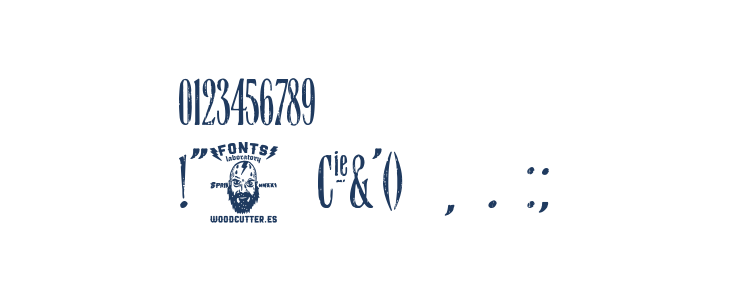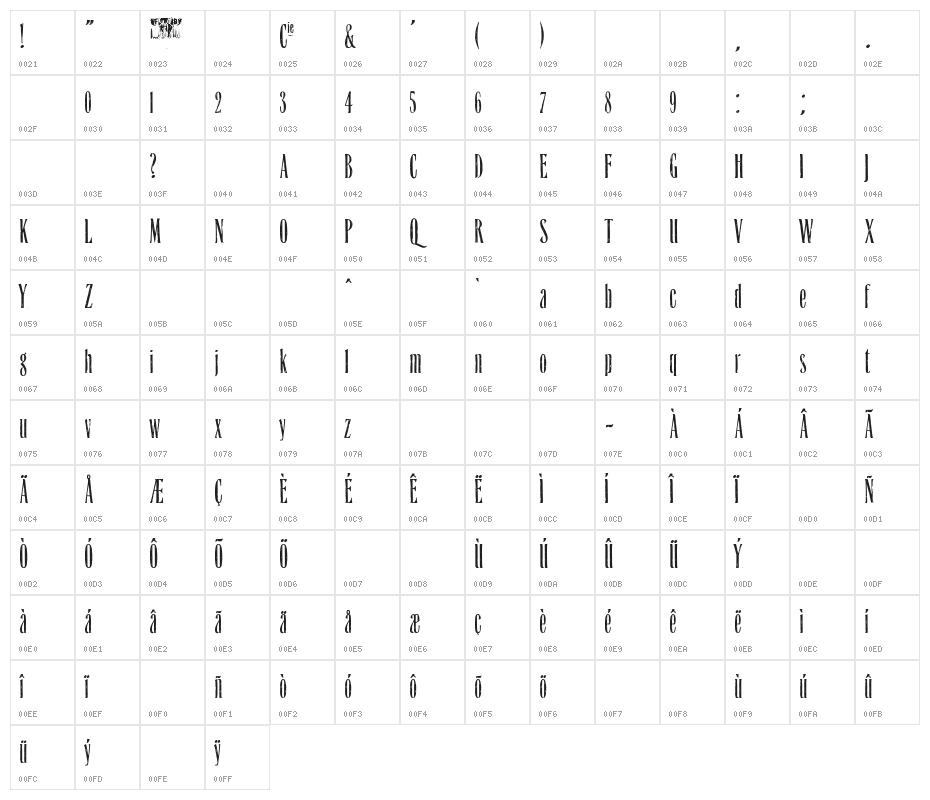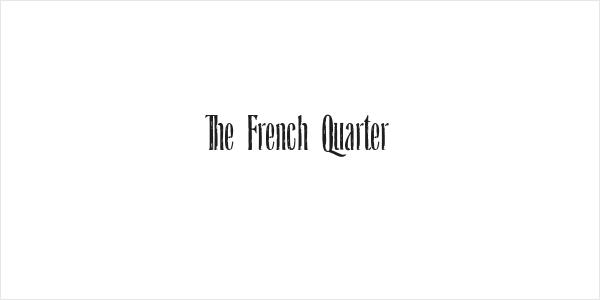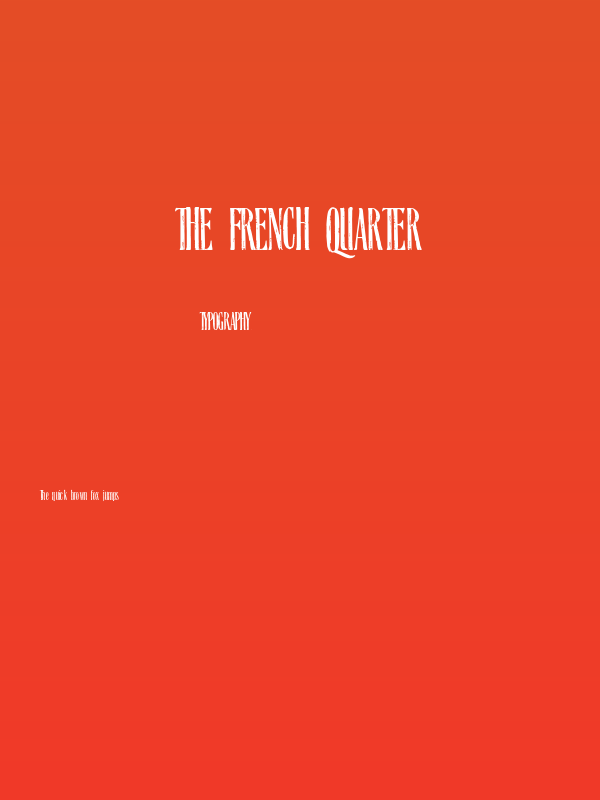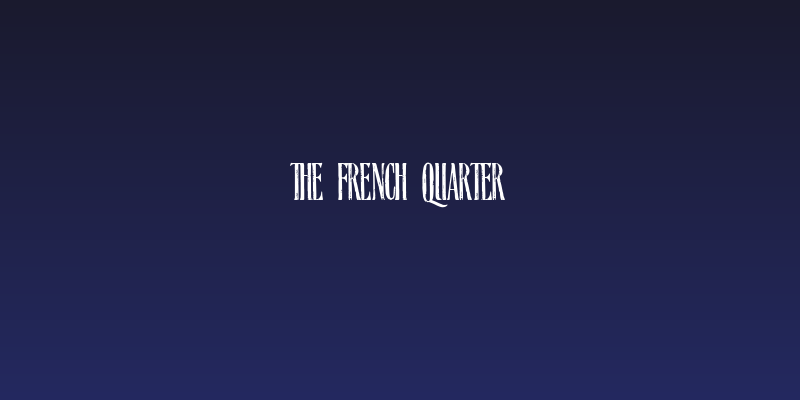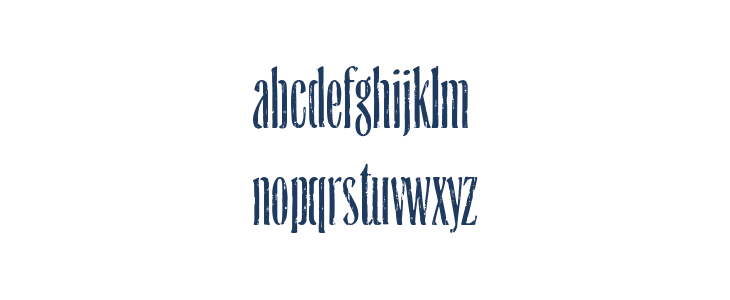
The French Quarter Font
The French Quarter Description
A tall, narrow display font with distressed, textured strokes and irregular edges, evoking a vintage, hand-painted sign aesthetic. The characters are condensed with high vertical emphasis and varying stroke thickness, giving a weathered and dramatic appearance.
| Overall Style | Vintage, Decorative |
| Use Case | Headlines, Posters, Logos, Signage |
| Proposed Projects | Posters, event flyers, themed restaurant menus, signage, branding for vintage or retro products, Halloween or carnival designs. |